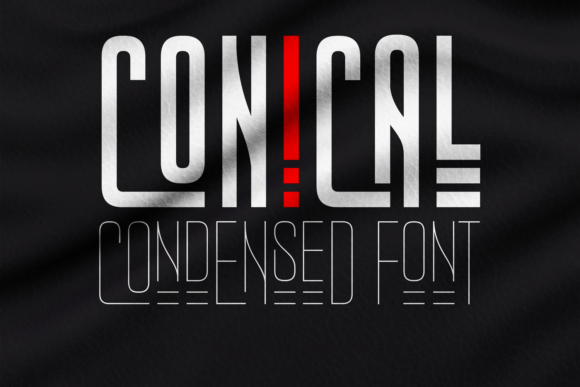
Brace yourself for a typographic journey like no other with Conical Font, a display font that exudes coolness and futurism. This font is not just a collection of letters; it's an artistic expression that will transform your designs into captivating masterpieces.
Imagine your web designs and business cards adorned with the sleek and sophisticated characters of Conical Font. Its condensed structure lends a touch of elegance and intrigue to every word, drawing the eyes of your audience like a magnet. The unique letterforms dance across the page, creating a visual symphony that captivates and inspires.
With Conical Font, you have a font that's as versatile as it is visually stunning. Use it to craft eye-catching headlines that demand attention, or let it add a touch of sophistication to your body text. The possibilities are endless, limited only by your imagination.
But what truly sets Conical Font apart is its ability to evoke emotions and create connections. Its futuristic appearance hints at unexplored frontiers, while its condensed form conveys a sense of urgency and importance. When you use this font, you're not just sending a message; you're creating an experience that resonates with your audience.
Don't settle for ordinary fonts that blend into the background. Embrace the power of Conical Font and watch as your designs come alive with a new sense of energy and purpose. Let this font be your creative companion, guiding you towards typographic greatness.